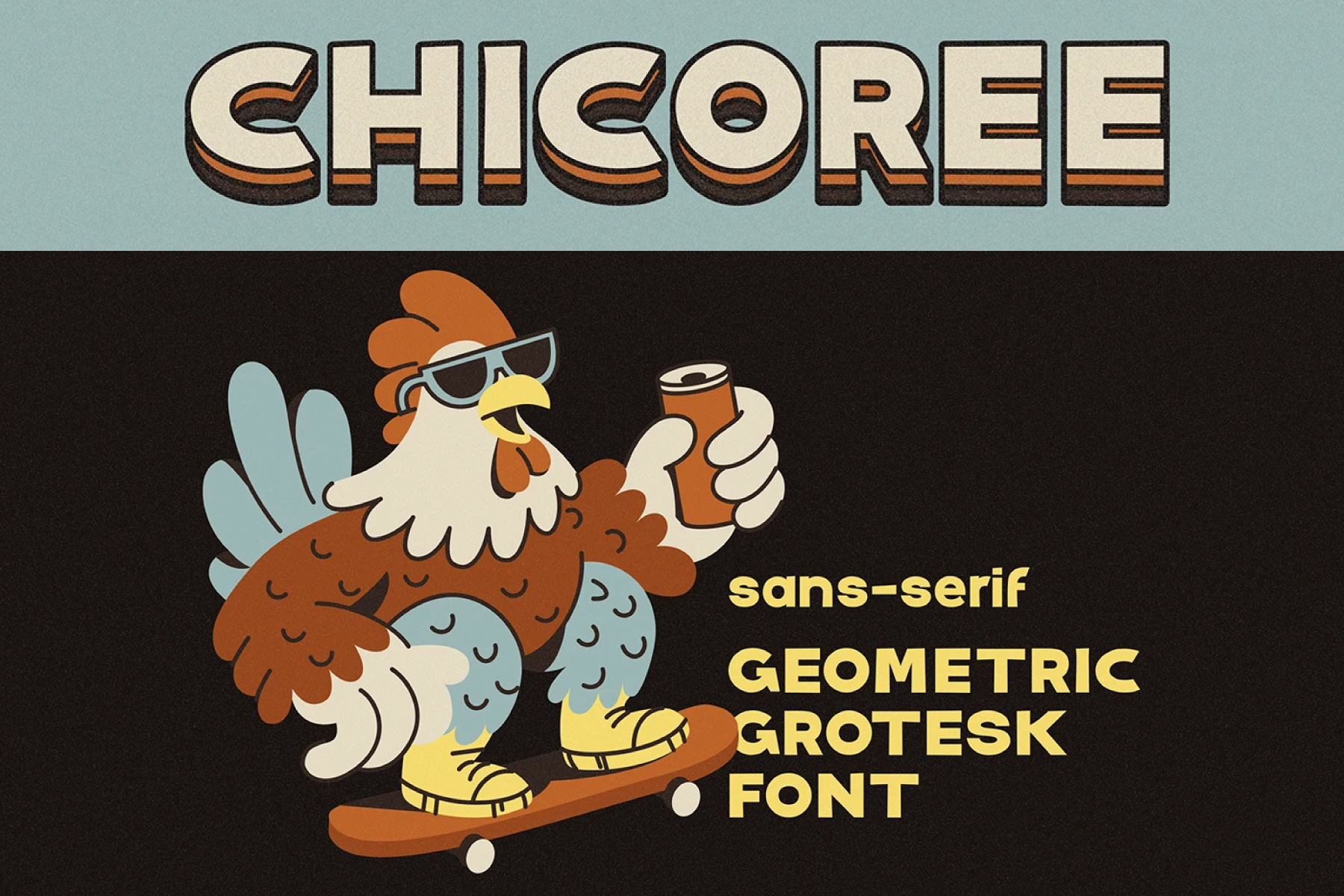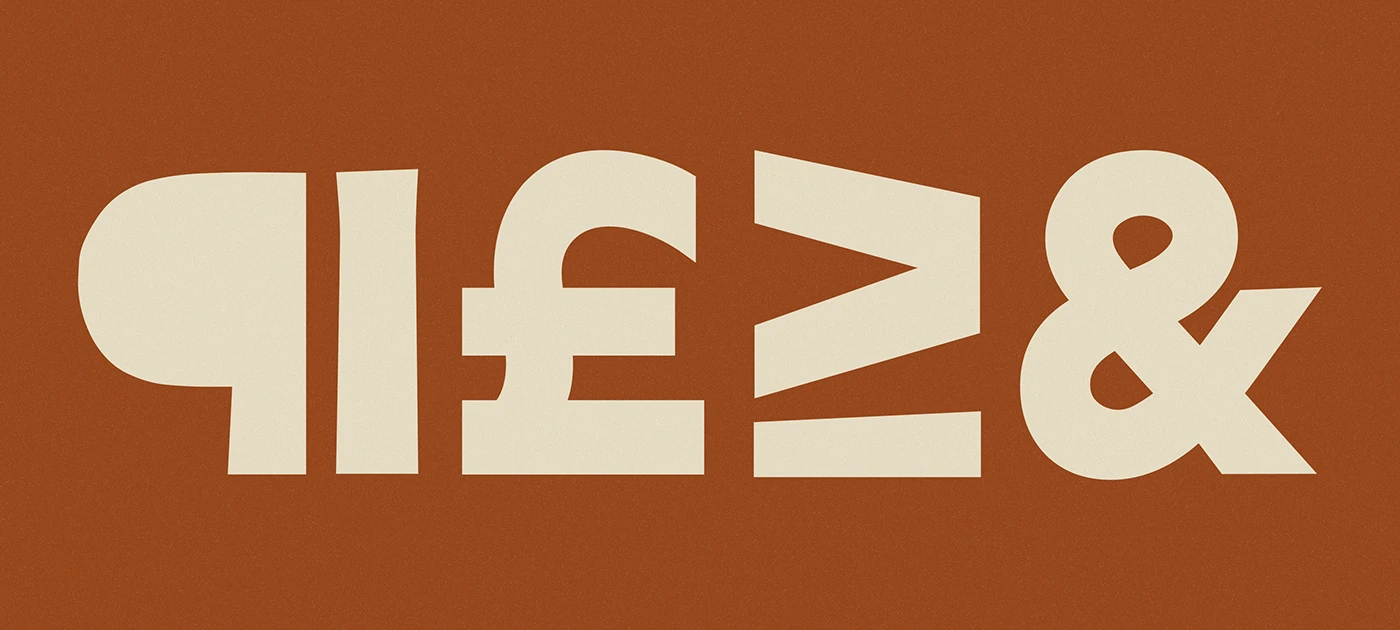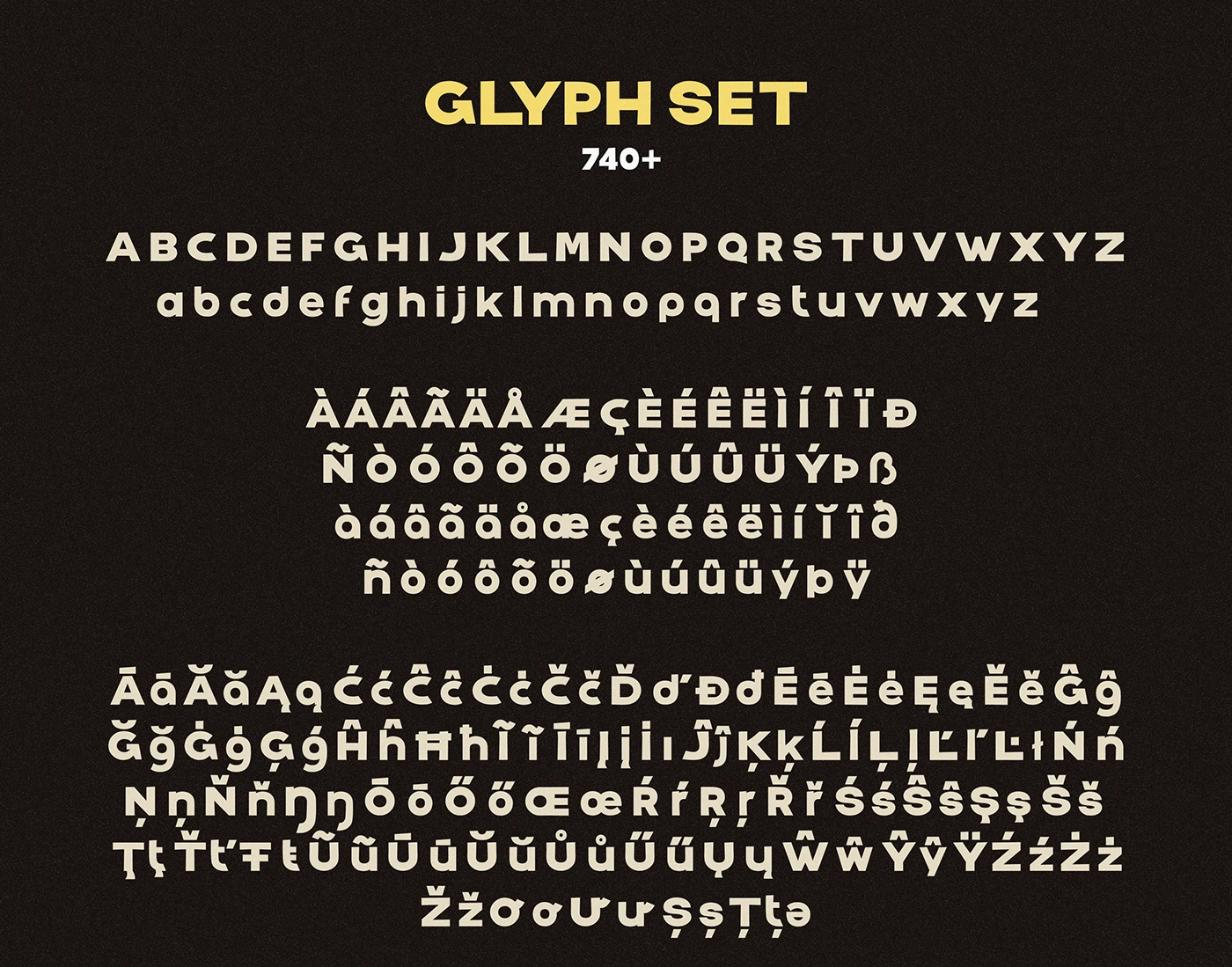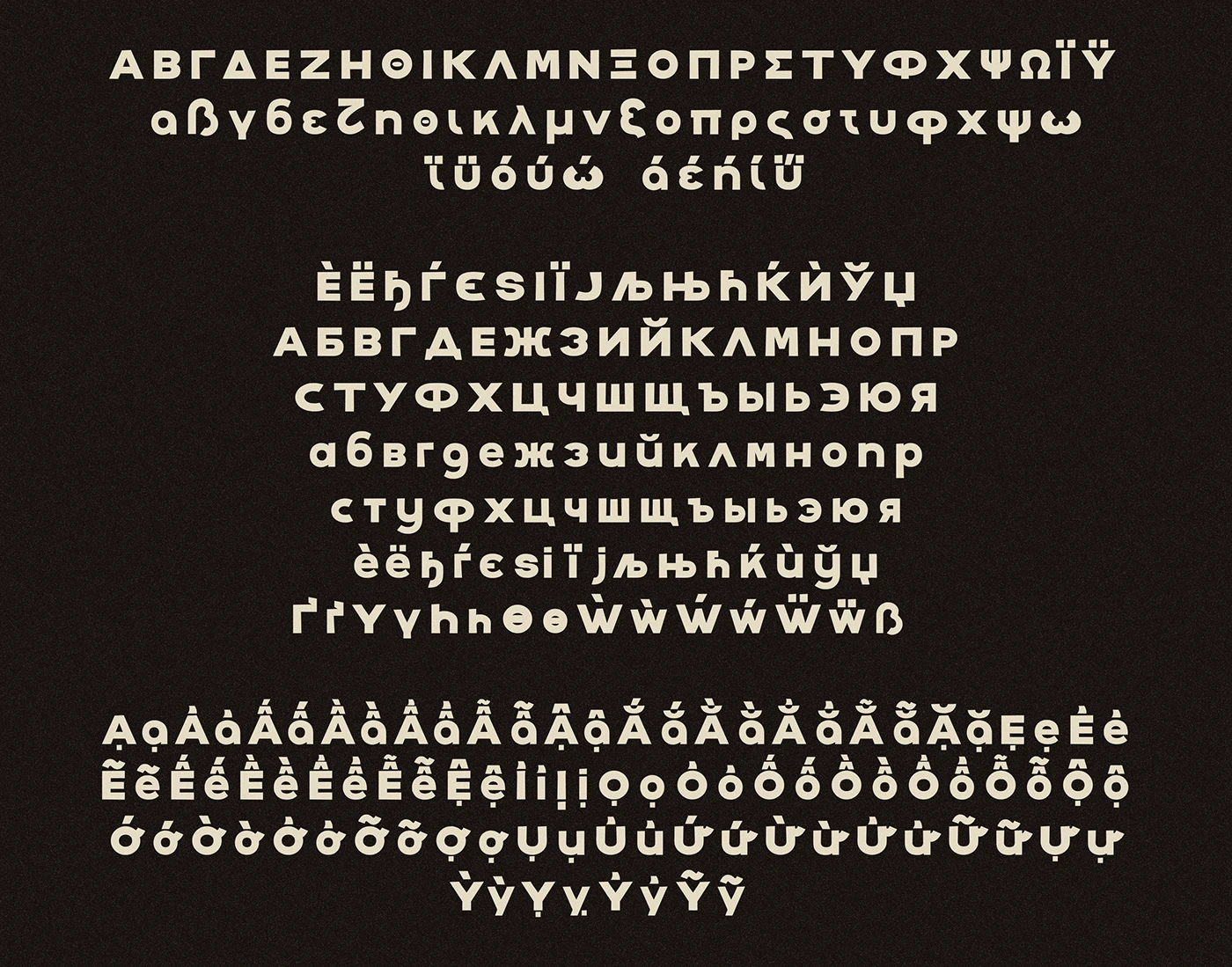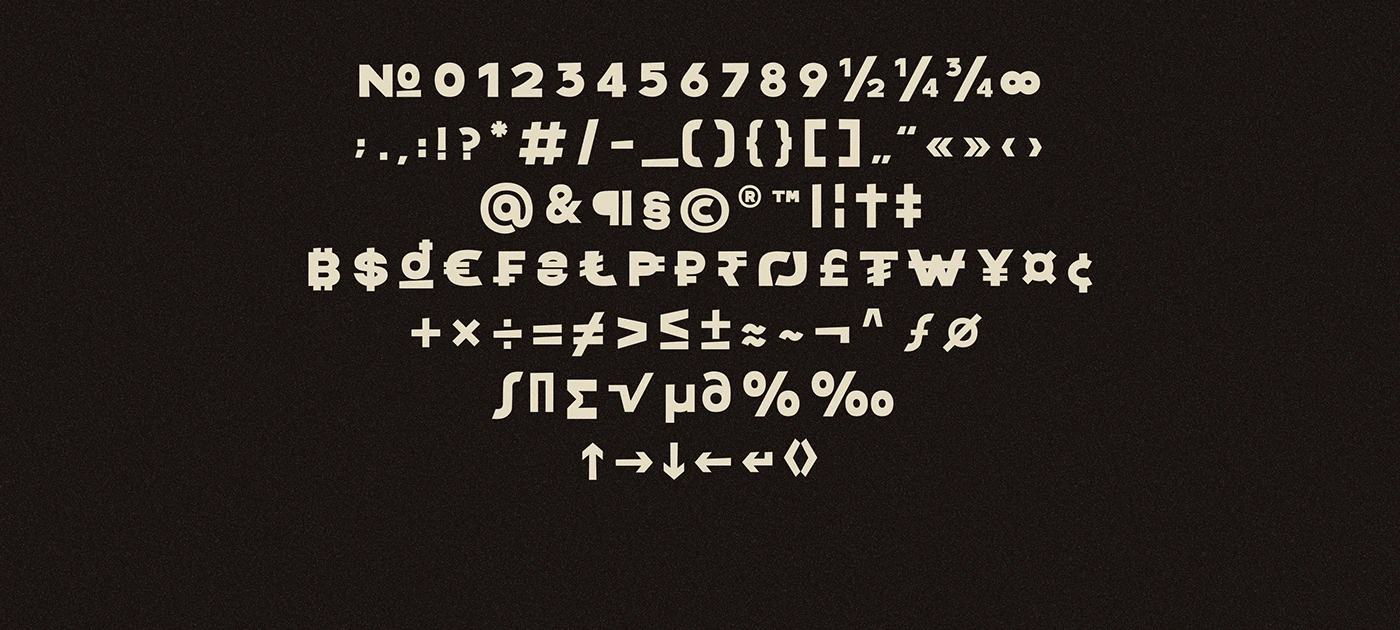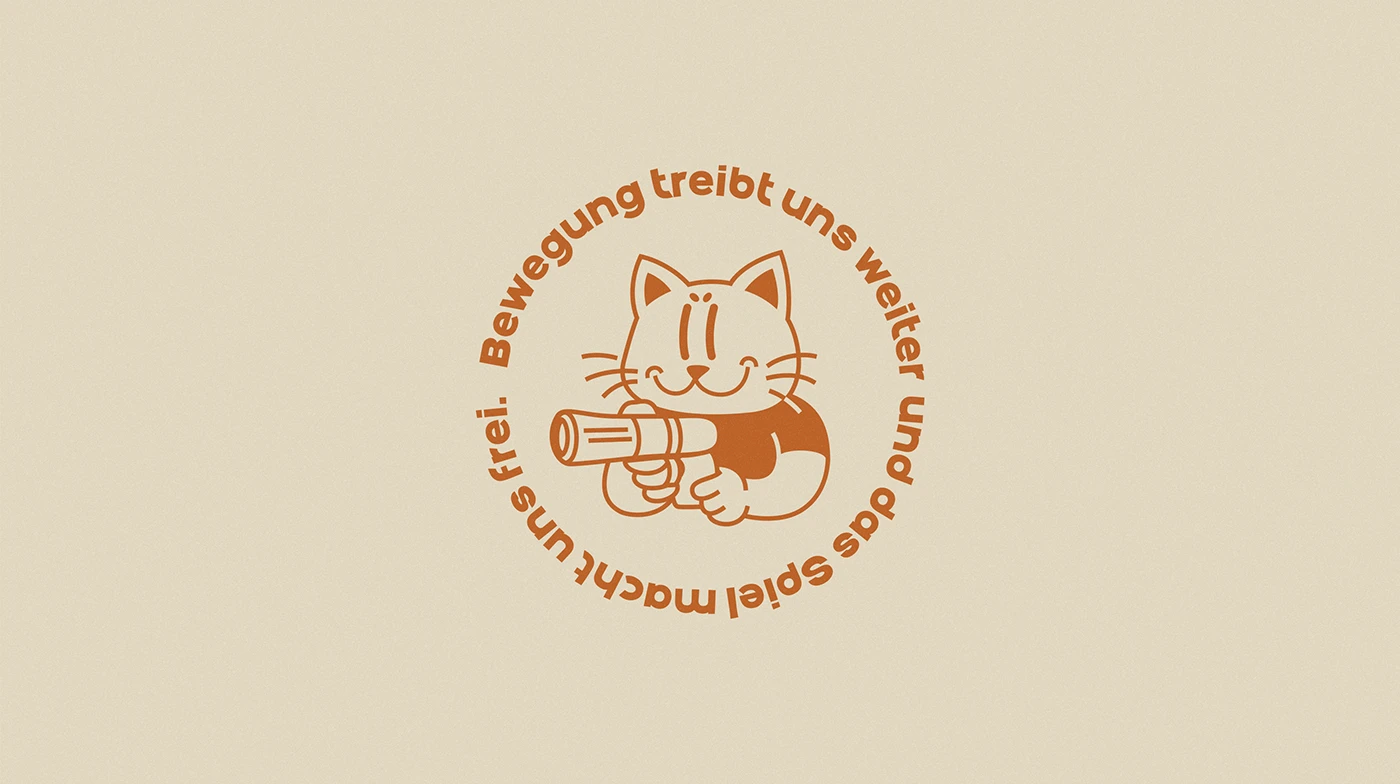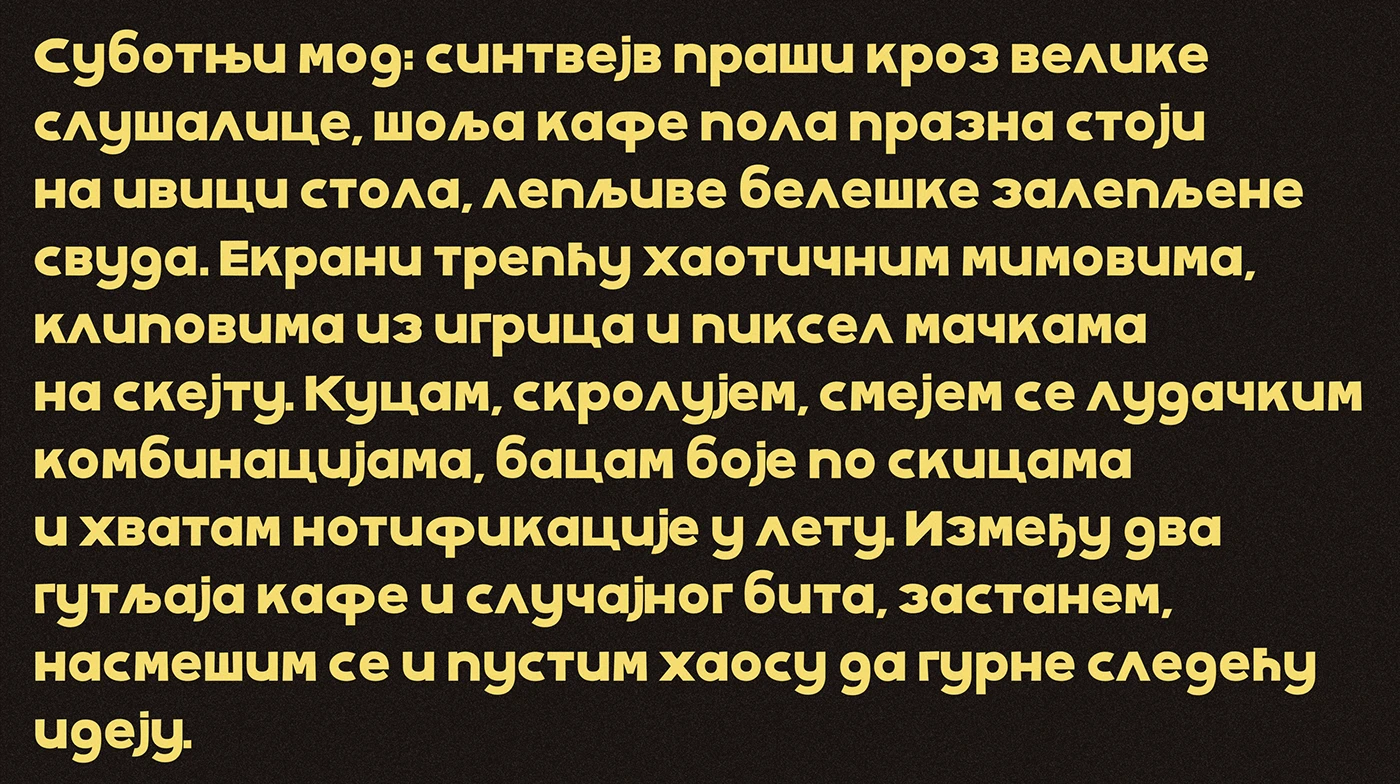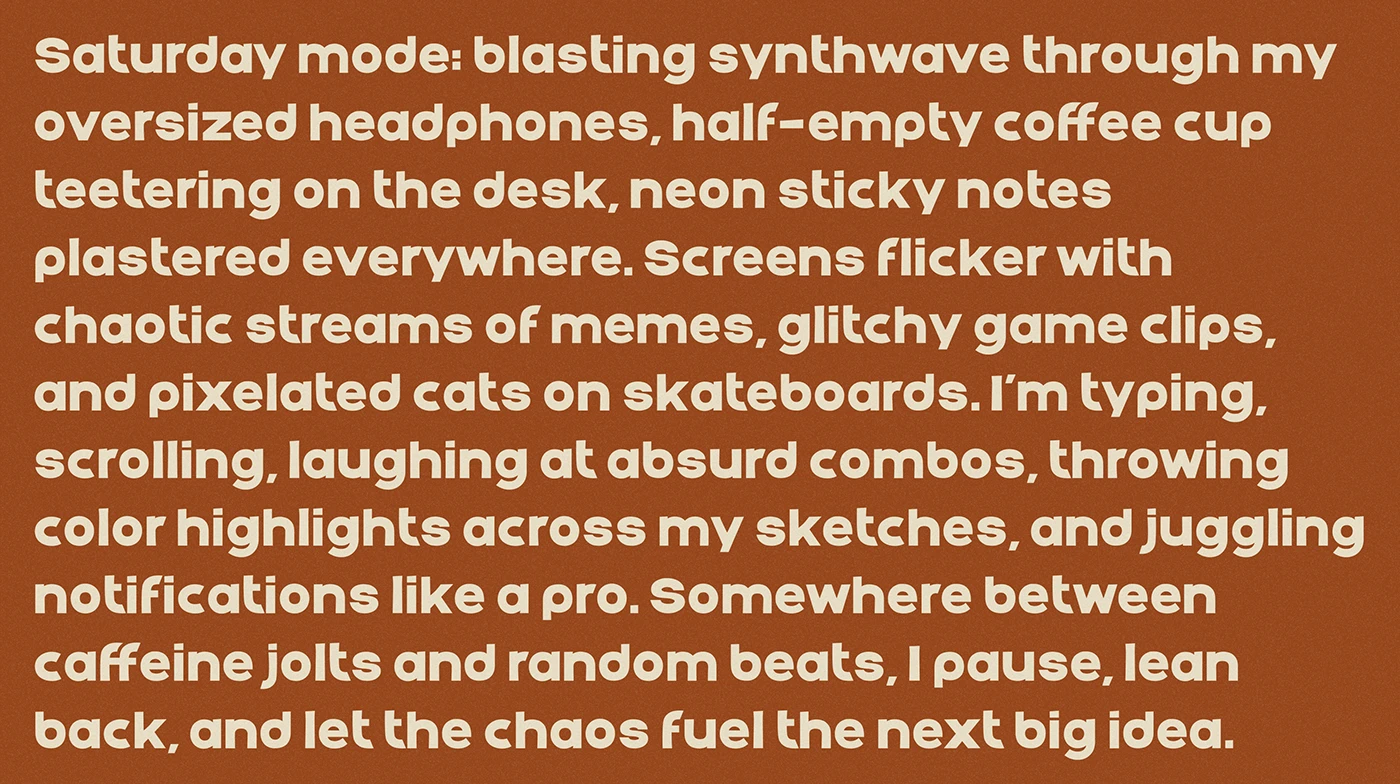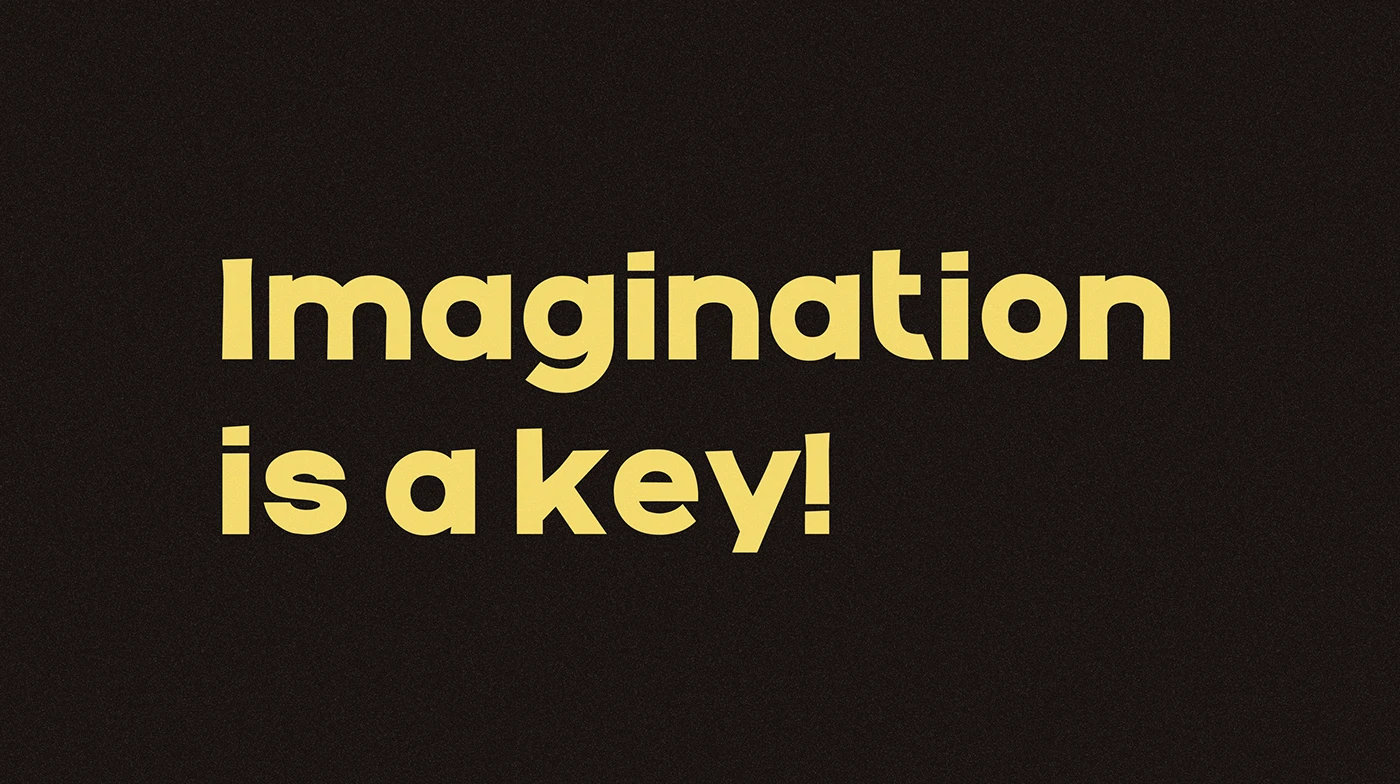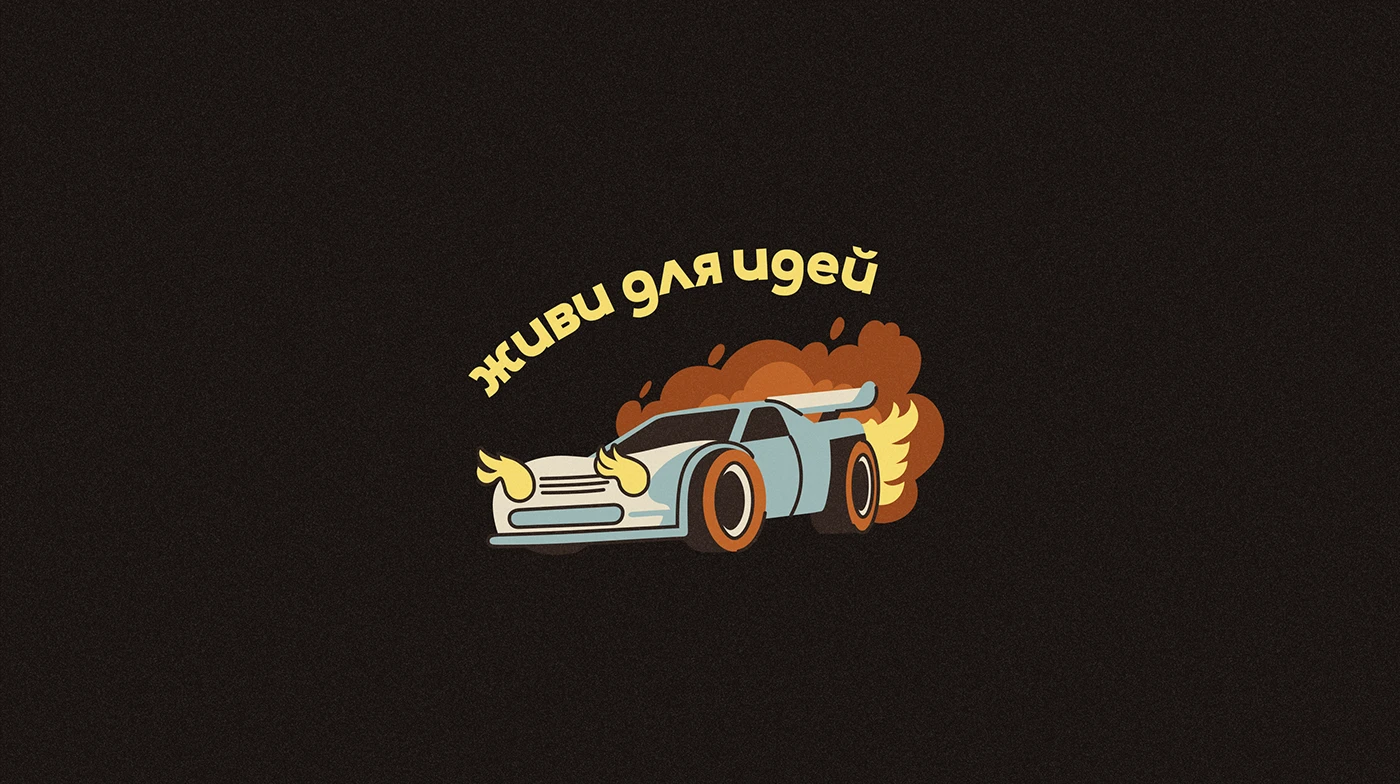
Chicoree - Free Geometric Grotesk Typeface
Chicoree
is a sans-serif geometric grotesk font by Liese Mars with smooth, rounded shapes and a solid vibe—simple, approachable, and super versatile for today’s visual language. Designed for extended Latin, Cyrillic in two styles. Over the 150 languages. The font also includes numbers and some symbols.